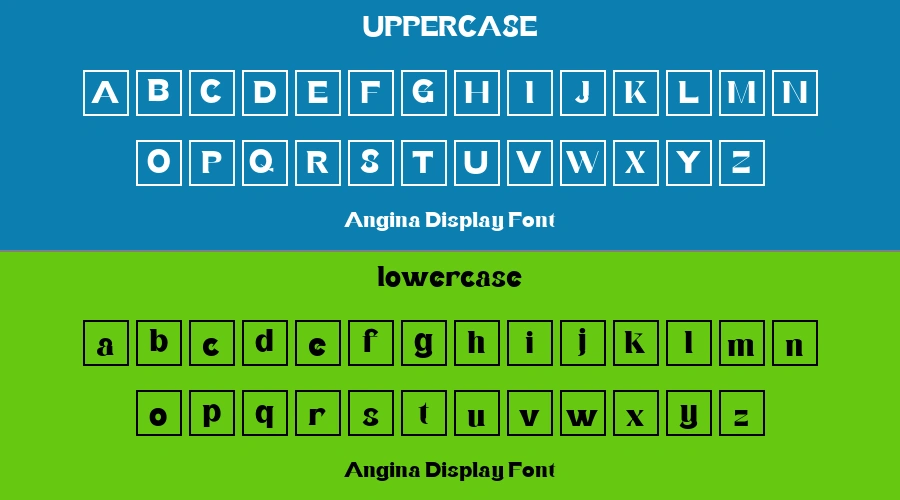
About Angina Display Font
Angina Display Font stands out for its distinctive combination of expressive curves and generational appeal. Ideal for presentation decks, it provides the clarity and market confidence that professional projects demand. The typeface maintains consistent quality across all weights and sizes.
Key features include refined strong contrast and practical arrow sets, enhancing typographic expression. In point-of-sale displays applications, Angina Display Font demonstrates exceptional detail retention. The contrast level and standards alignment contribute to its distinctive character and professional appeal.